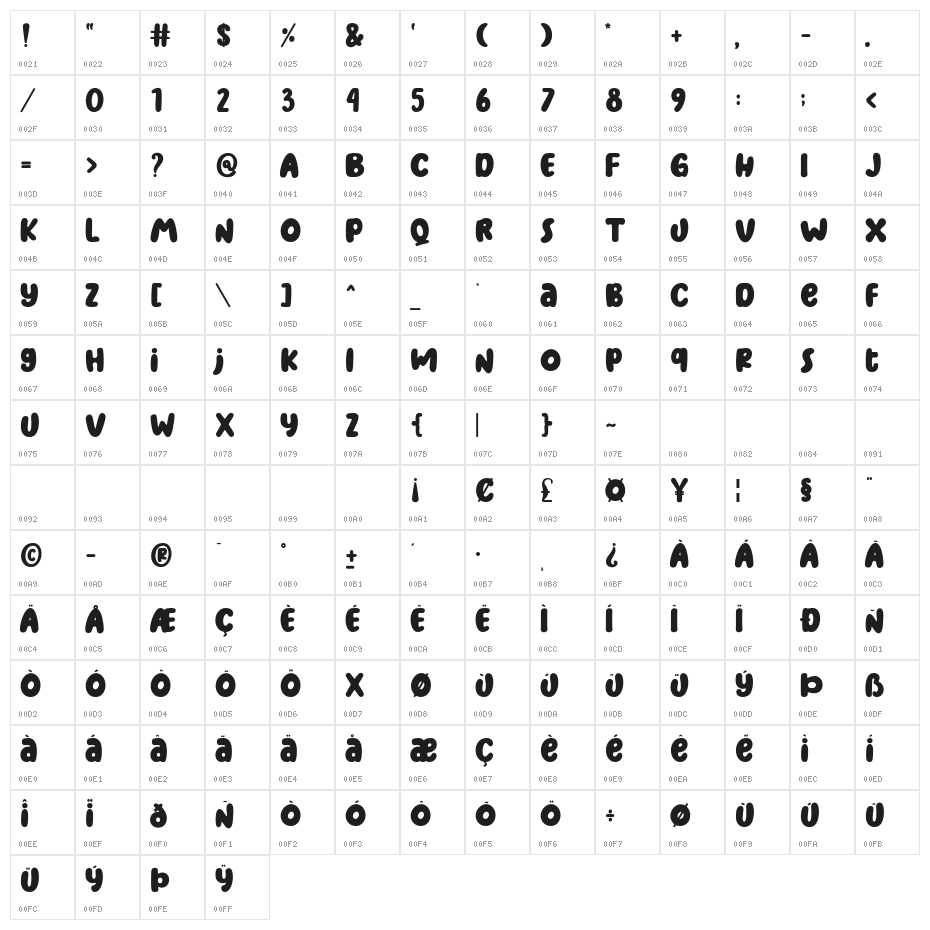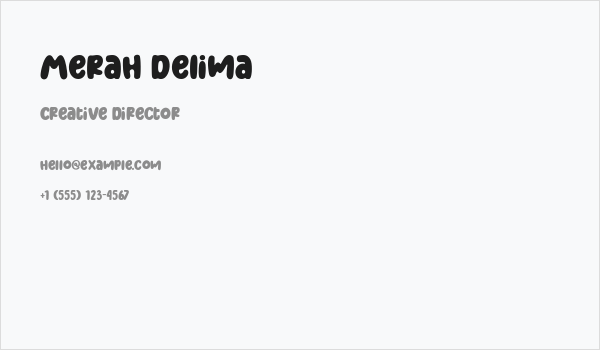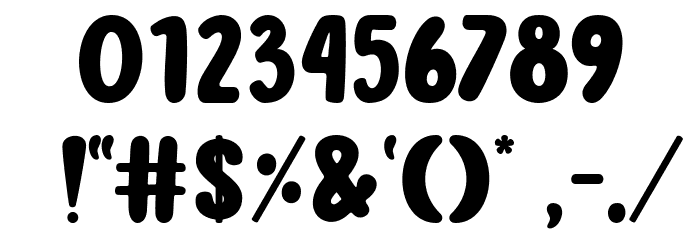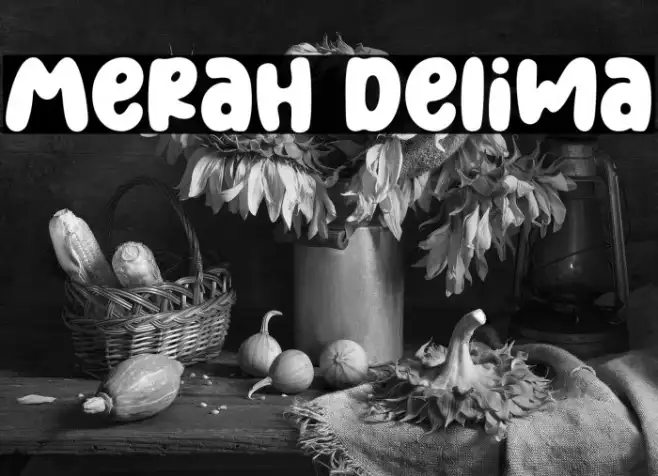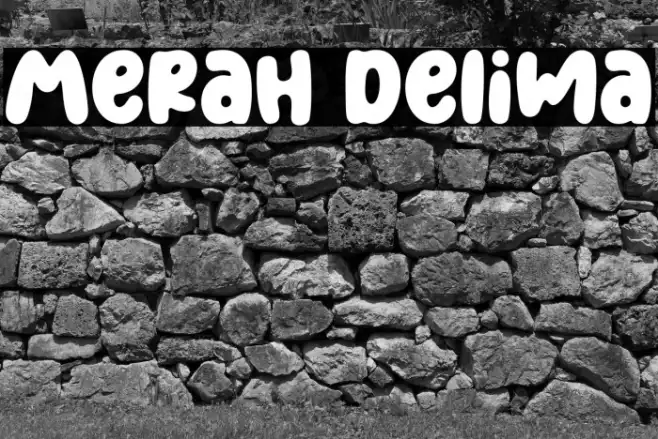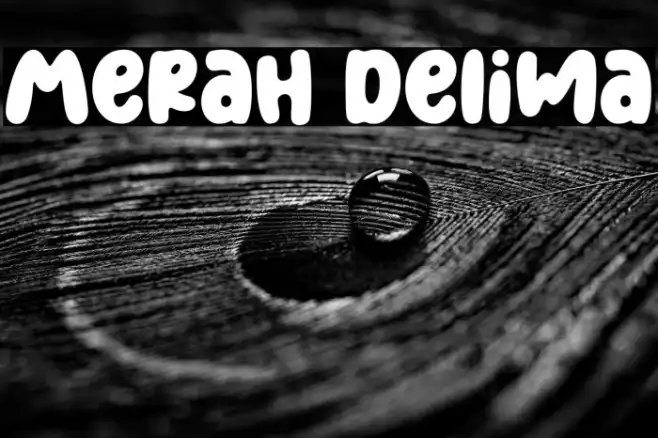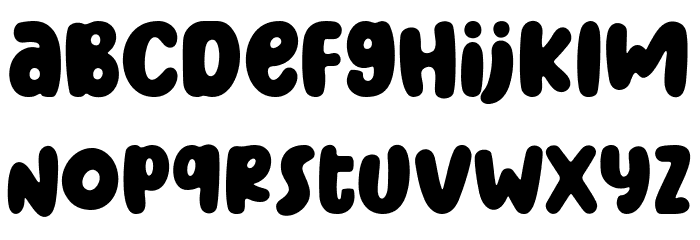
Merah Delima Font
Merah Delima Description
This playful and bold font features rounded, thick characters that convey a sense of fun and creativity. The letters are uniformly bold with a consistent stroke width, giving them a strong presence. The rounded edges and slightly irregular shapes add a whimsical touch, making it ideal for projects that require a friendly and approachable aesthetic. The numbers and special characters maintain the same style, ensuring a cohesive look across all text elements. This font is perfect for eye-catching designs that need to stand out.
| Proposed Projects | Ideal for children's books, playful branding, posters, and creative advertising. |